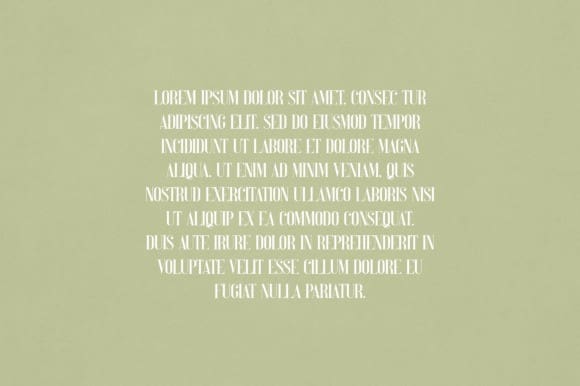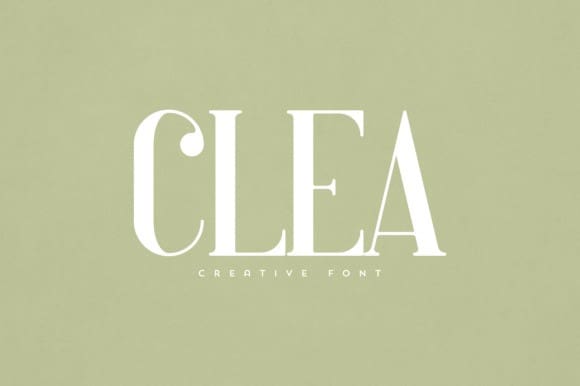
Clea Font
Clea Font is an elegant and versatile font that will make your typography truly unique! It will enchant every logo, branding, headline, or plain text!